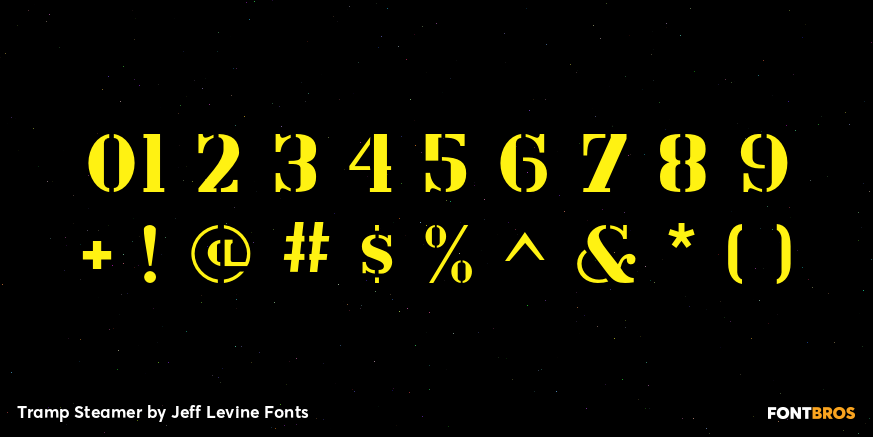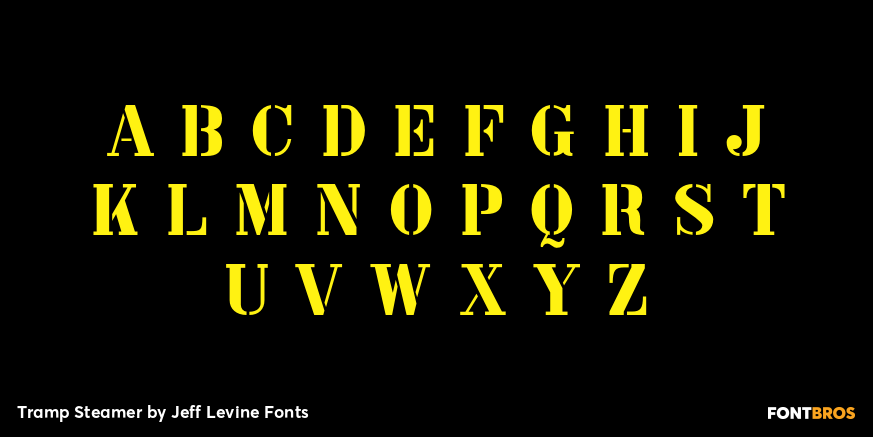
Tramp Steamer
Tramp Steamer JNL is a re-interpretation of an old metal typeface that's been around for years.
This is a bit different from many of Jeff Levine's other stencil revival fonts, which are modeled from actual paper and metal stencil guides.